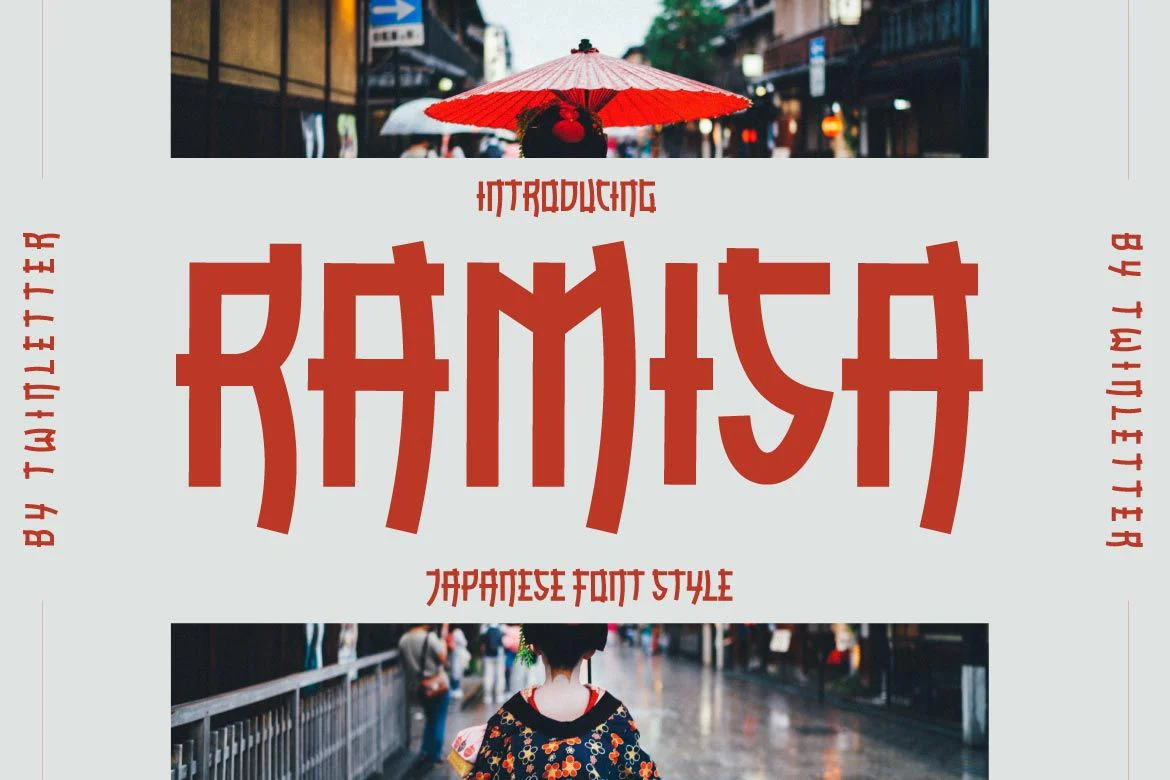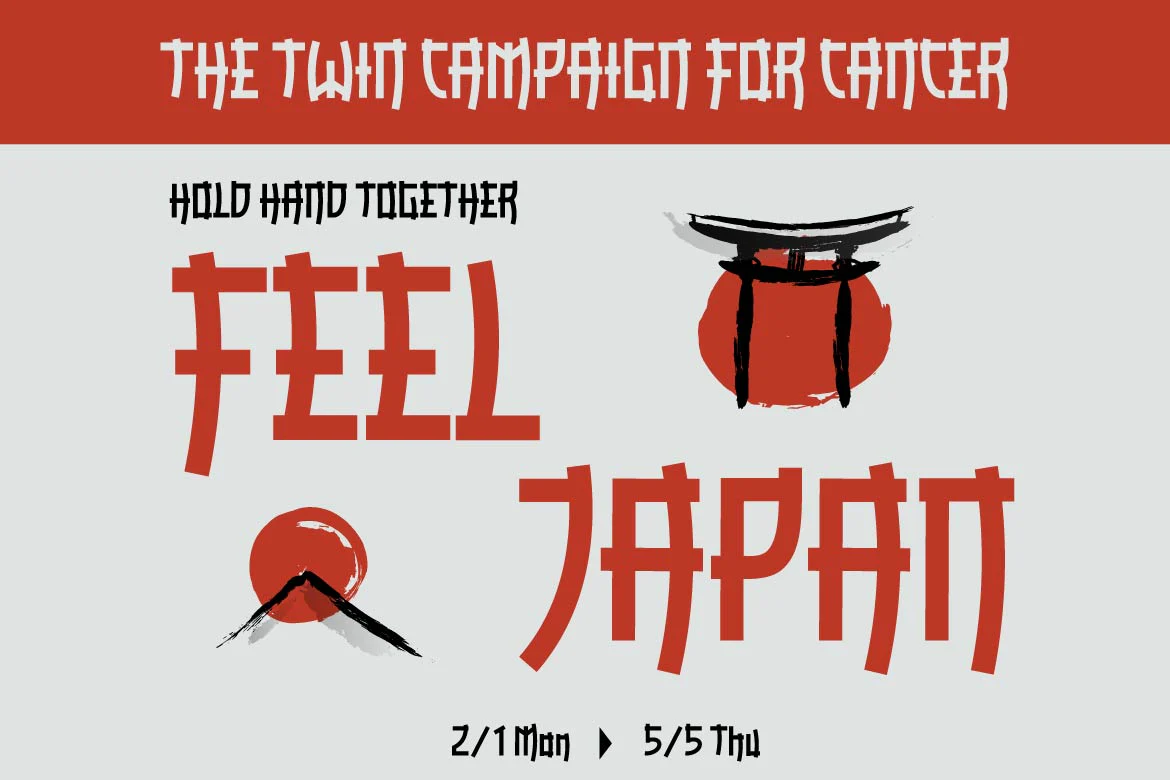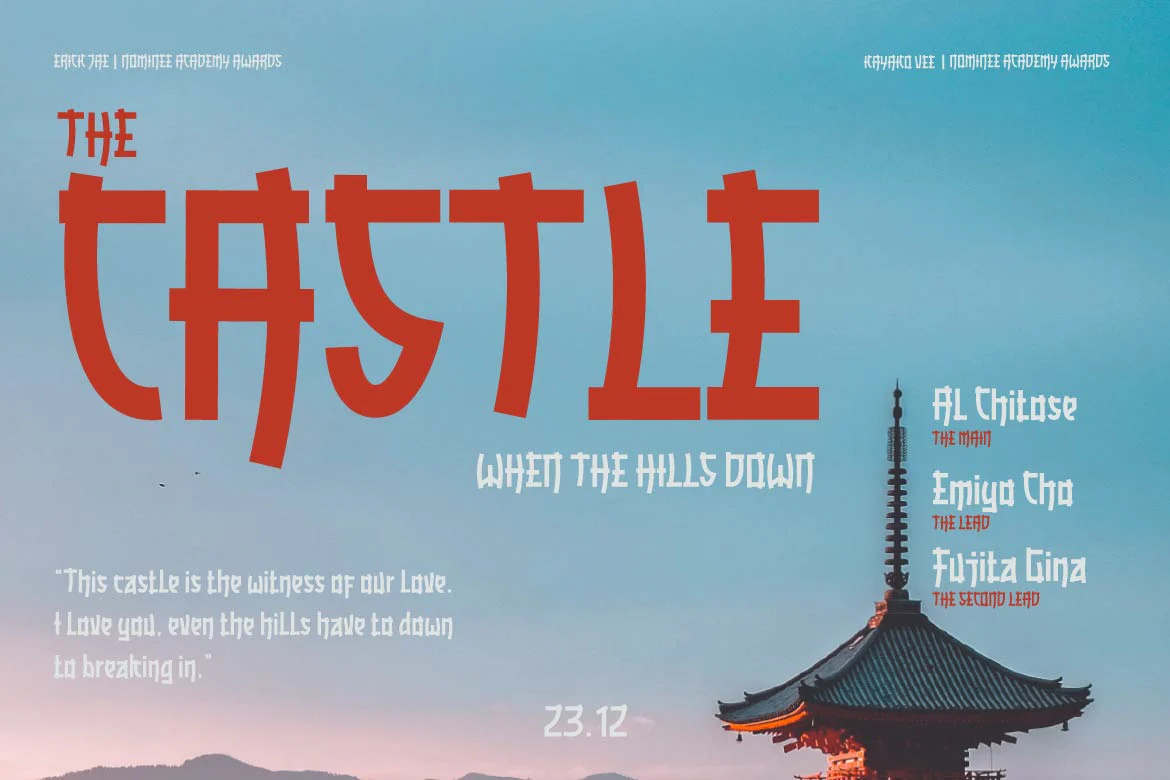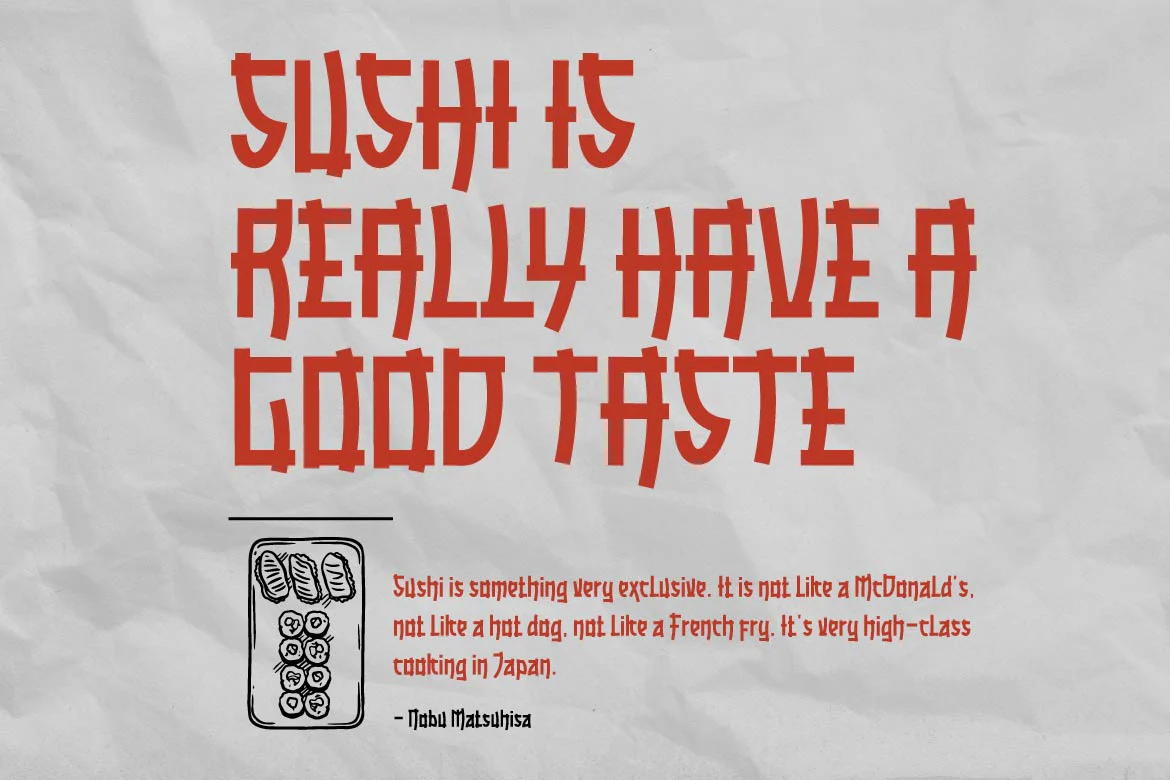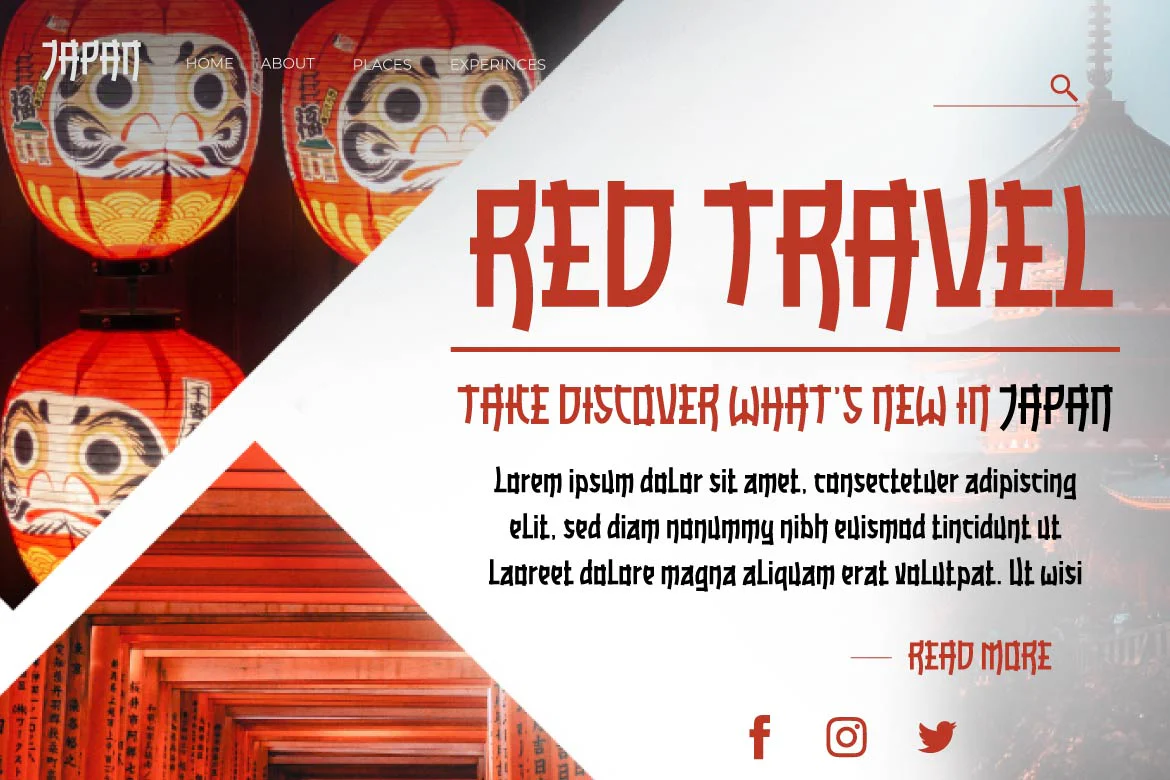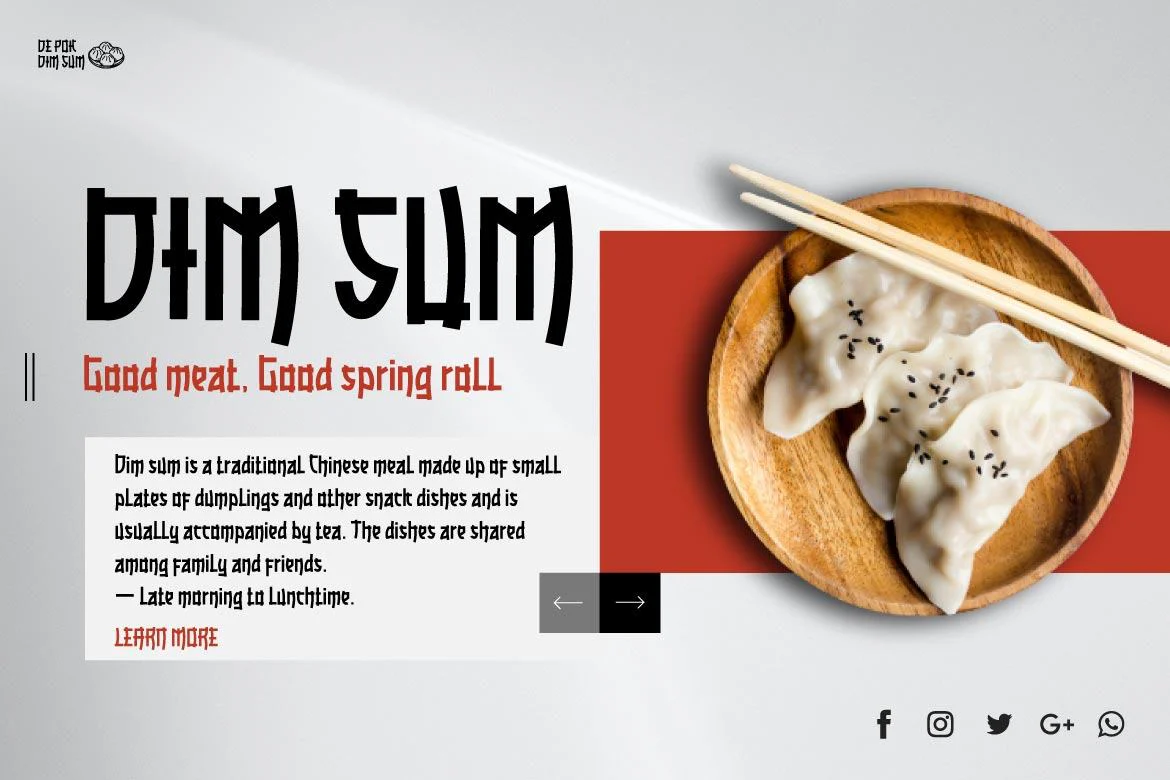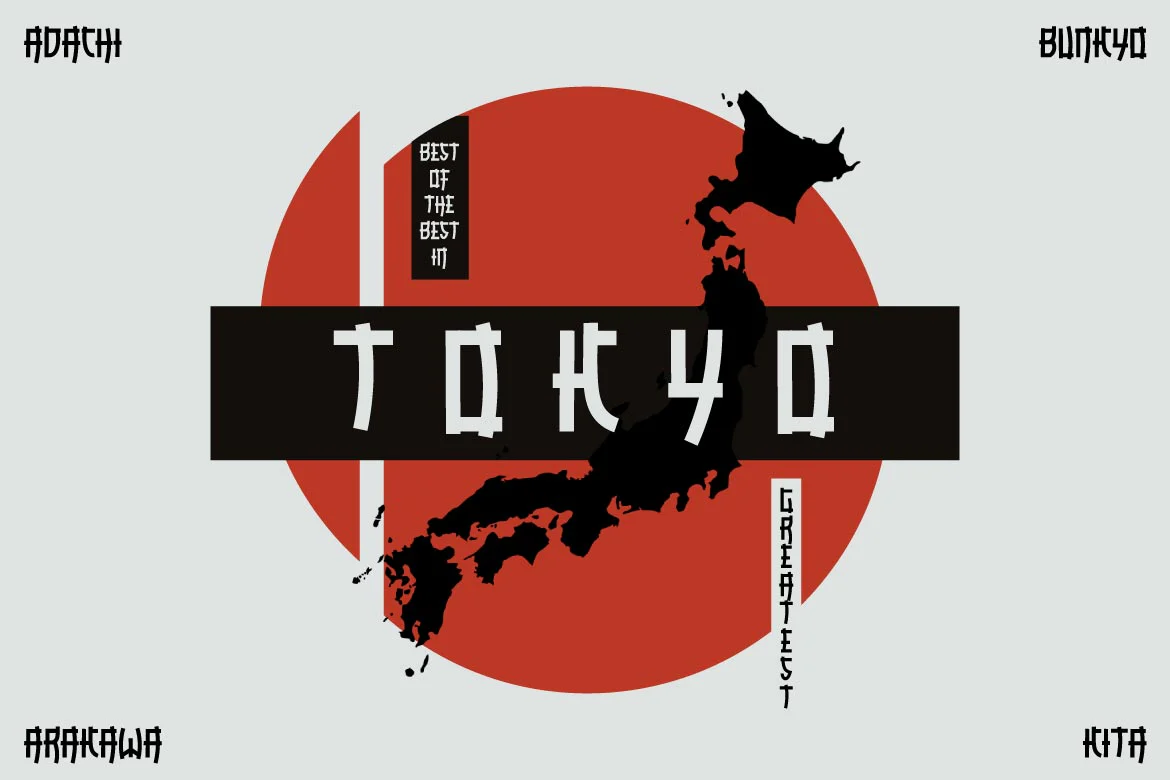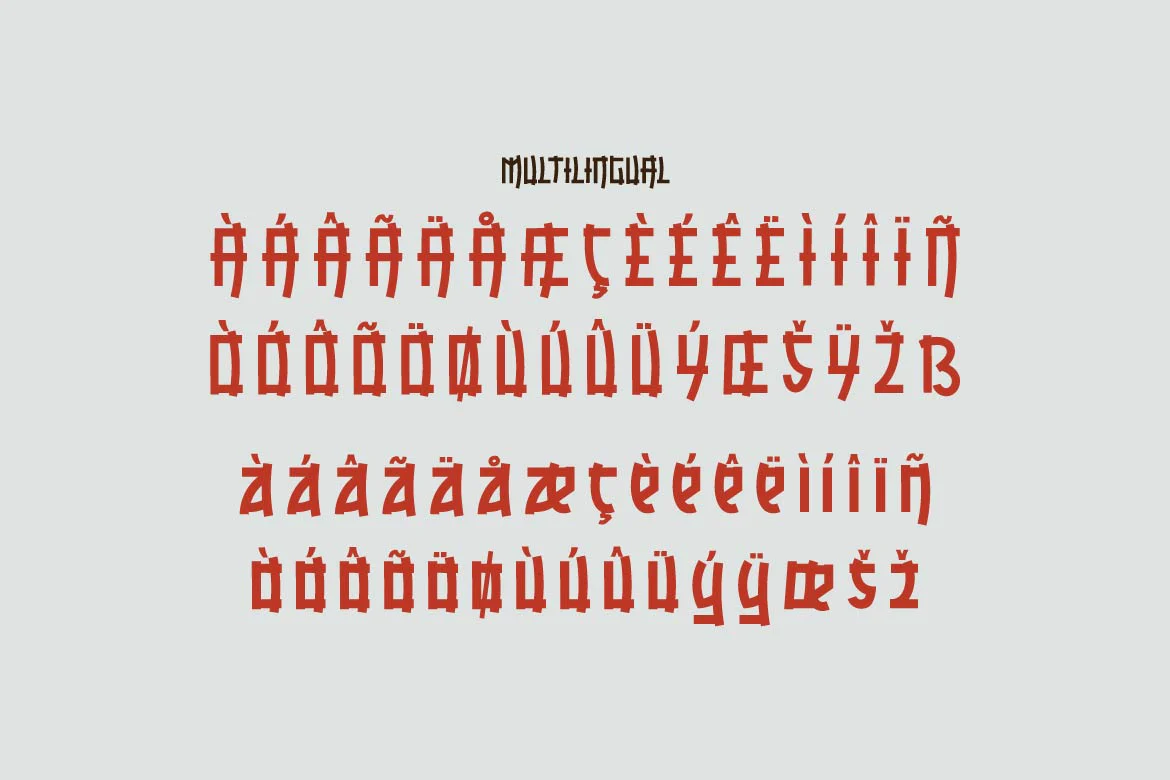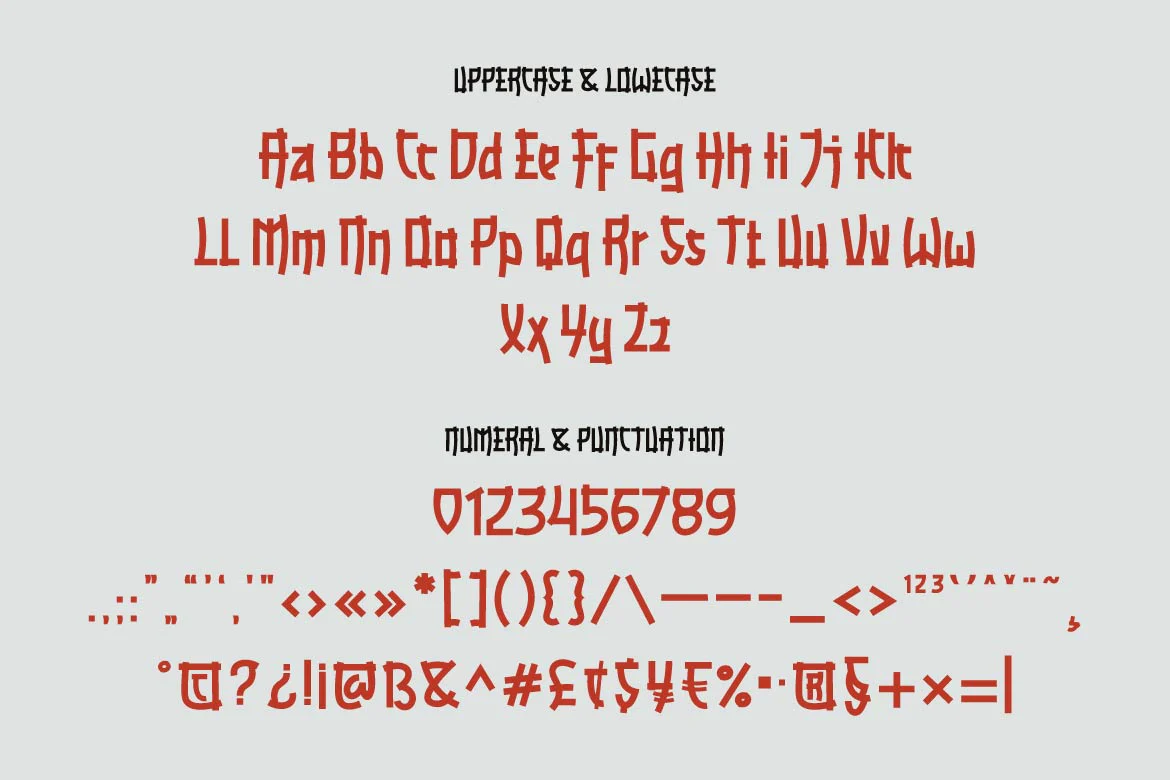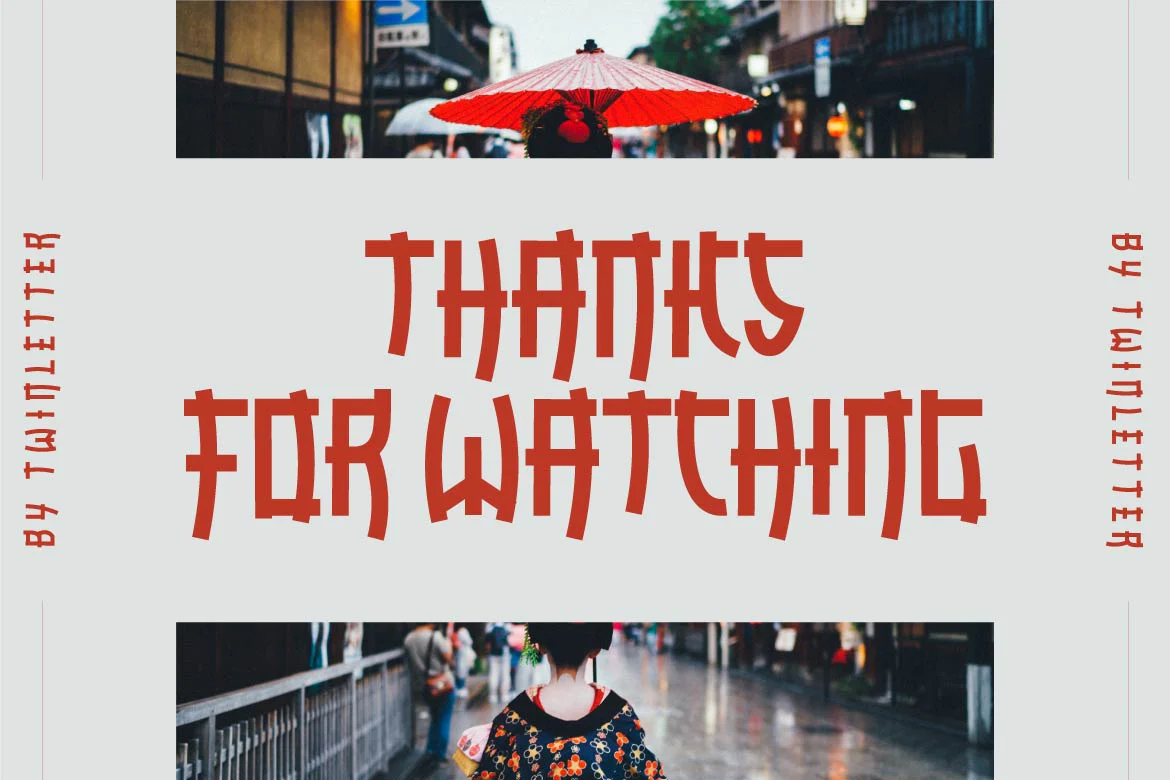
RAMISA Faux Japanese Font
Ramisa is a Japanese-style font that is designed as unique as possible to create a beautiful and easy-to-read combination of sentences. Of course, this font is also very flexible for you to use in your various projects, ensuring that your project has a fantastic and appealing appearance that will be remembered by all audiences.
Logotypes, food banners, branding, brochure, posters, movie titles, book titles, quotes, and more may all benefit from this font.
Of course, using this font in your various design projects will make them excellent and outstanding; many viewers are drawn to the striking and unusual graphic display.